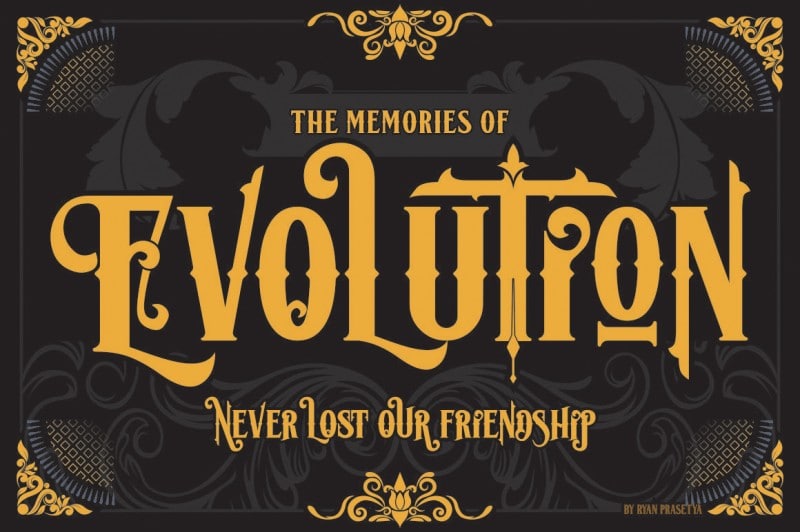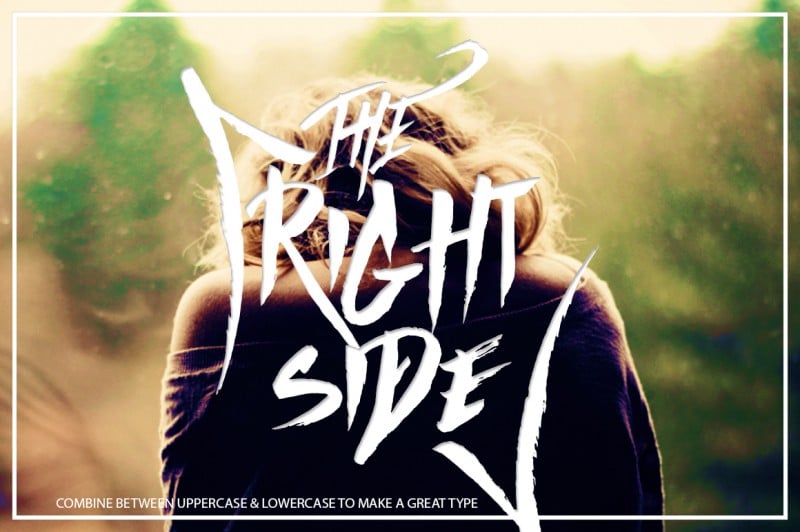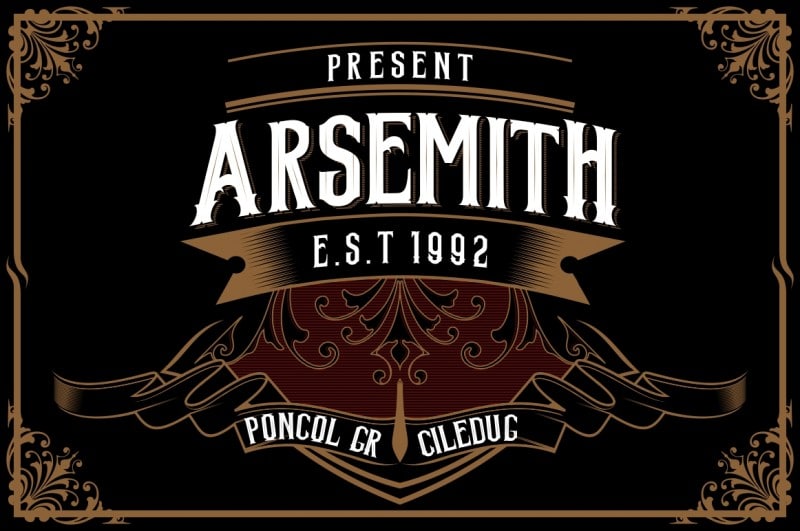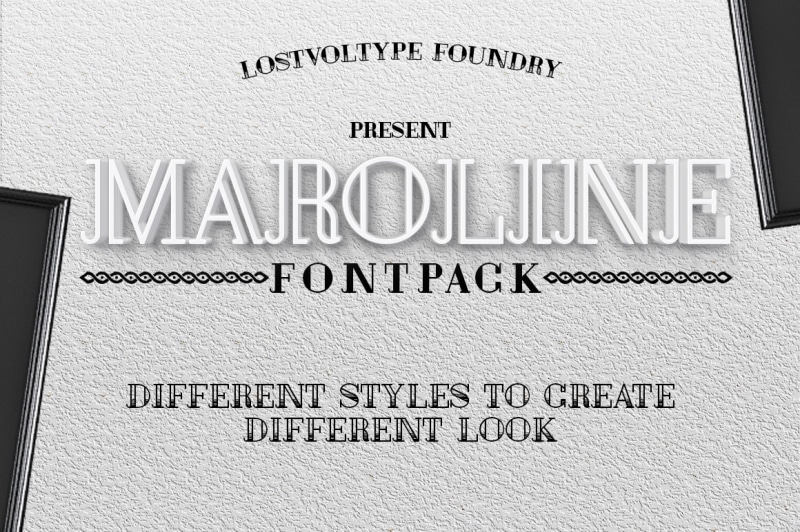
Amazing Christmas Font Bundle
This Amazing Christmas Font Bundle from lostvoltype foundry, is great and perfect for your vintage project. Included 16 font from 8 family fonts.
Lost Volution
Lostvolution is a new classic and decorative typeface, victorian style. this typeface come with over than 150 alternate characters to fit your typograhy.
Mutiara Vintage
Mutiara Vintage is a typeface with vintage taste, including 4. font. The font family is slab, bold, rough, multilingual supoorted and was completely 54 alternate character. best to your typography, headline, t-shirt design.
Mutiara Brush
Mutiara is a new typeface, created from original brush with extreme style.
Arsemith
Arsemith typeface is Modern Vintage typeface with some Modern touch. Great for almost all of your designing needs including headline, labels, logo, etc and best for typography.
Maroline Fontpack
Maroline Fontpack is a new font added by Lostvoltype Foundry, 5 fonts included in this pack with different style to create different look for your design.